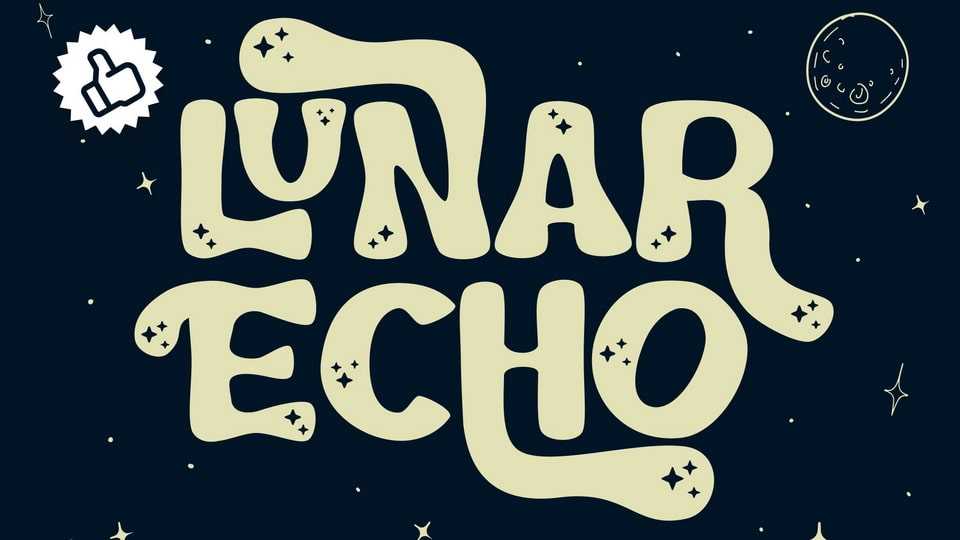
Download Lunar Echo font, a whimsical space-themed typeface is out of this world, perfect for adding a touch of cosmic charm to your designs.
Designer: Helotype